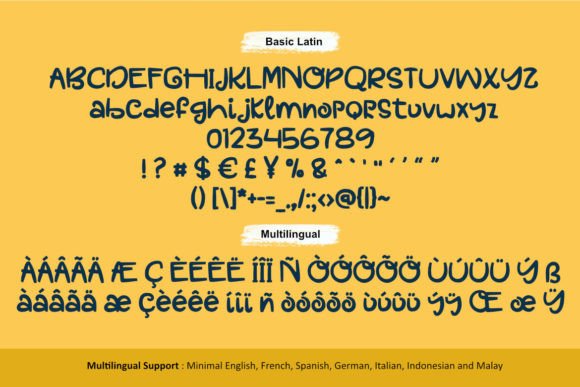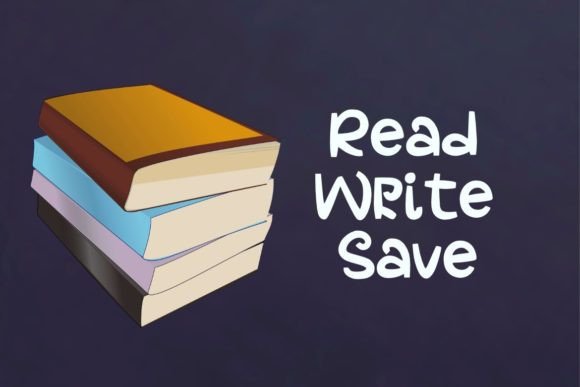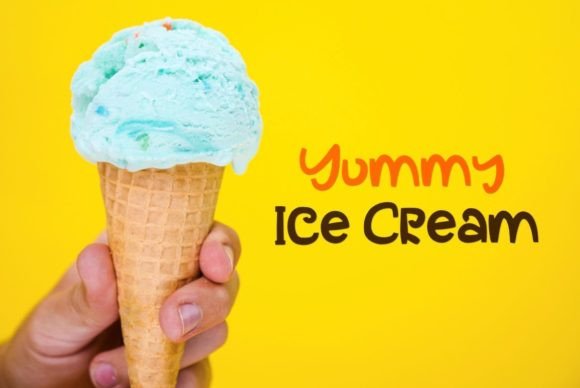
Introduction to Norman Font
Norman is an incredibly cool and unique display font.
Norman is an incredibly cool and unique display font. It has a modern yet whimsical style and it will undoubtedly immerse your designs into a magical worl
Key Features of Norman Font
Why Choose Norman Font?